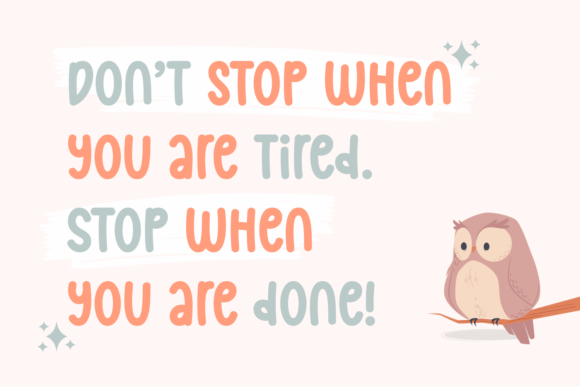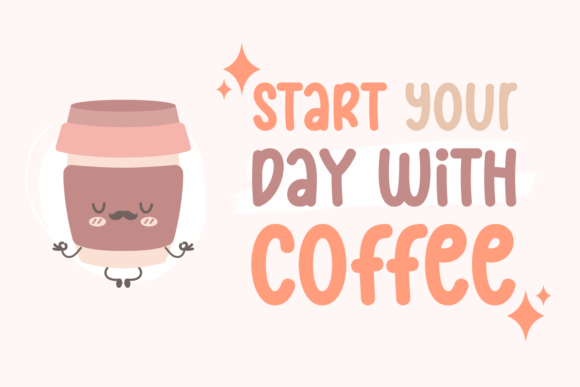
Hello Mikaty Font
db-ku.com - Script & Handwritten -- Hello Mikaty is a cute and simple handwritten font. This original look will appeal to a wide range of crafty ideas, from letterheads and titles, to stationery.